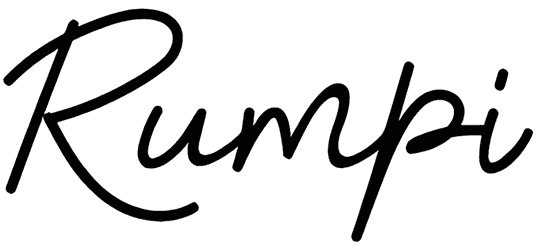
Rumpi Font
Are you searching for a script font that can be used in every context? So, Rumpi is an addition that should be in your font roundup. This handwritten font, with its uneven edges, can suit any taste.
Rumpi has a lovely dynamic and fluidity that can be combined with black and white with a classic image, to create a poster, wedding card, or invitation card with a very elegant look.